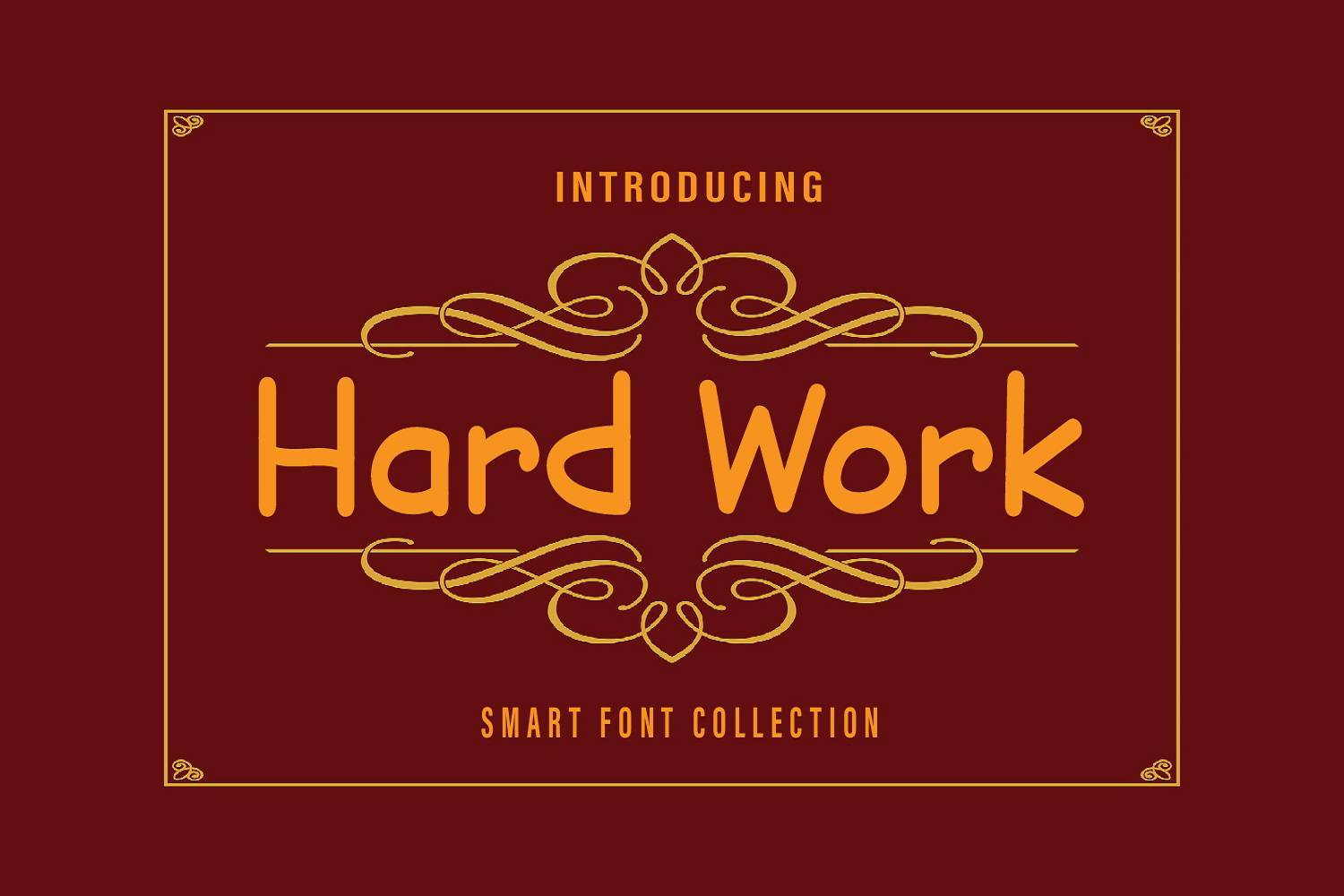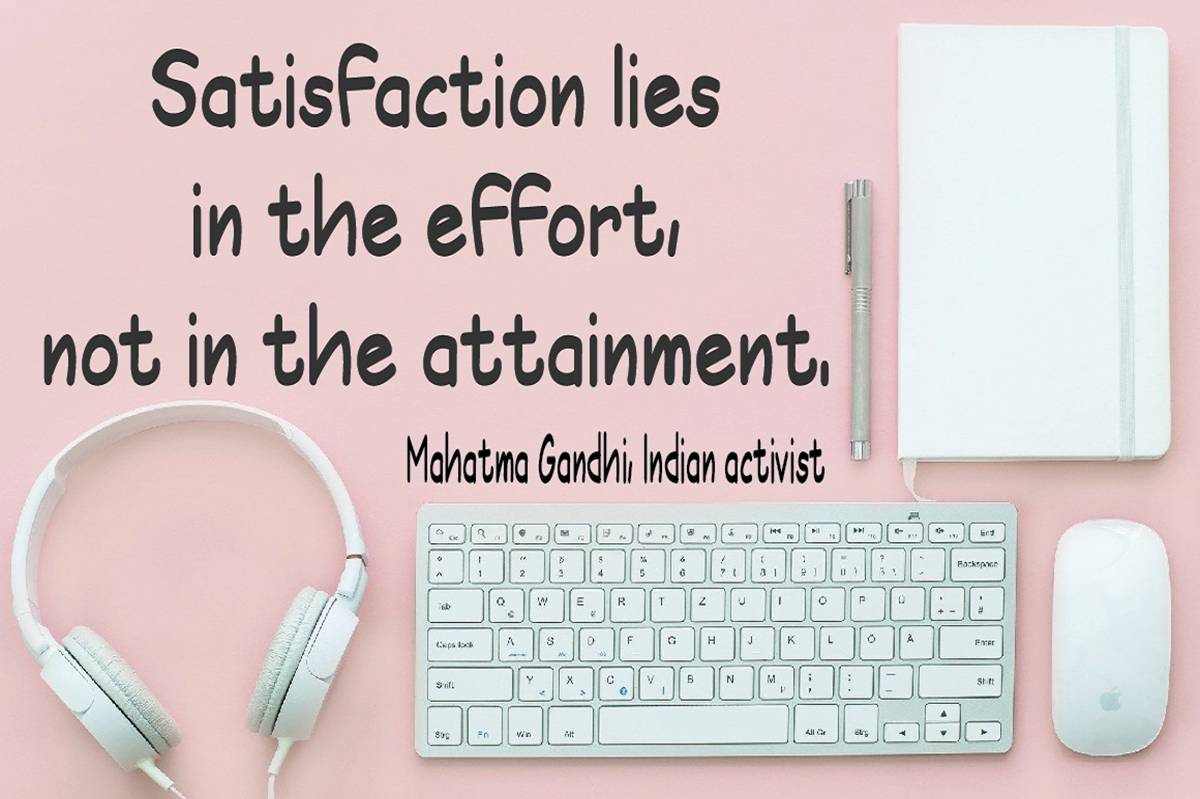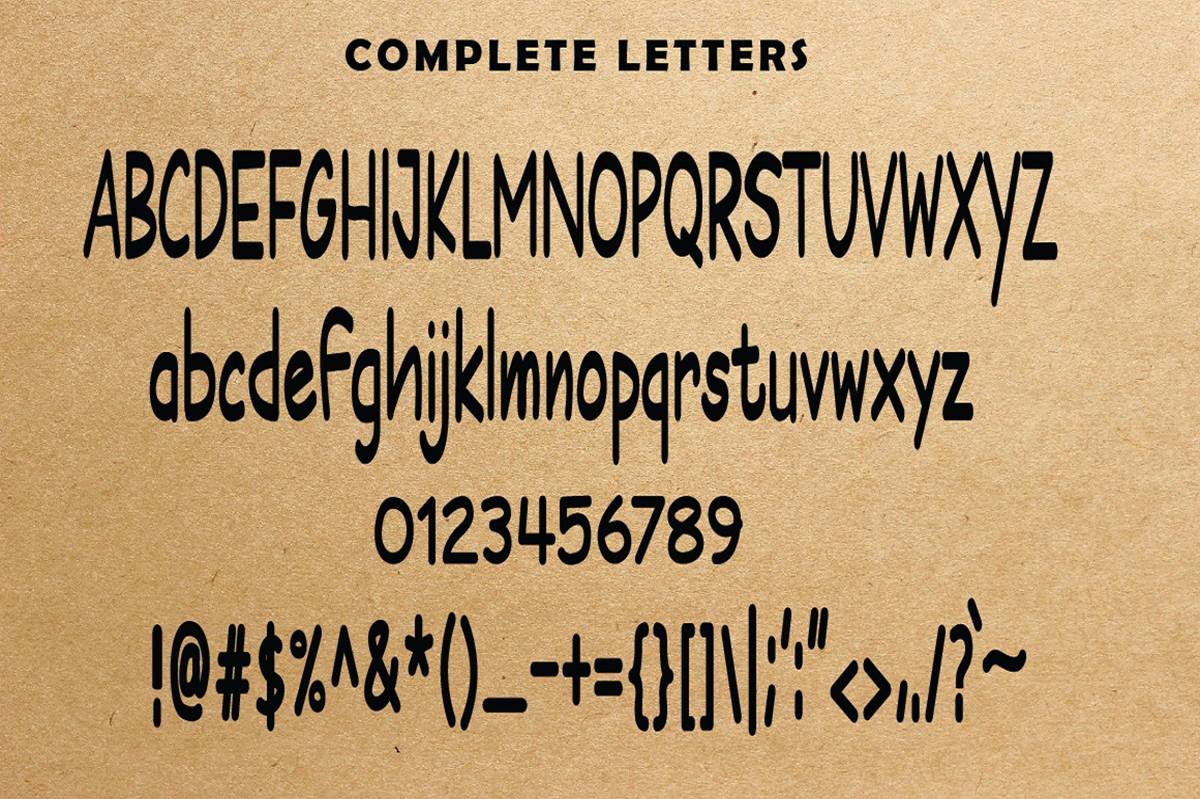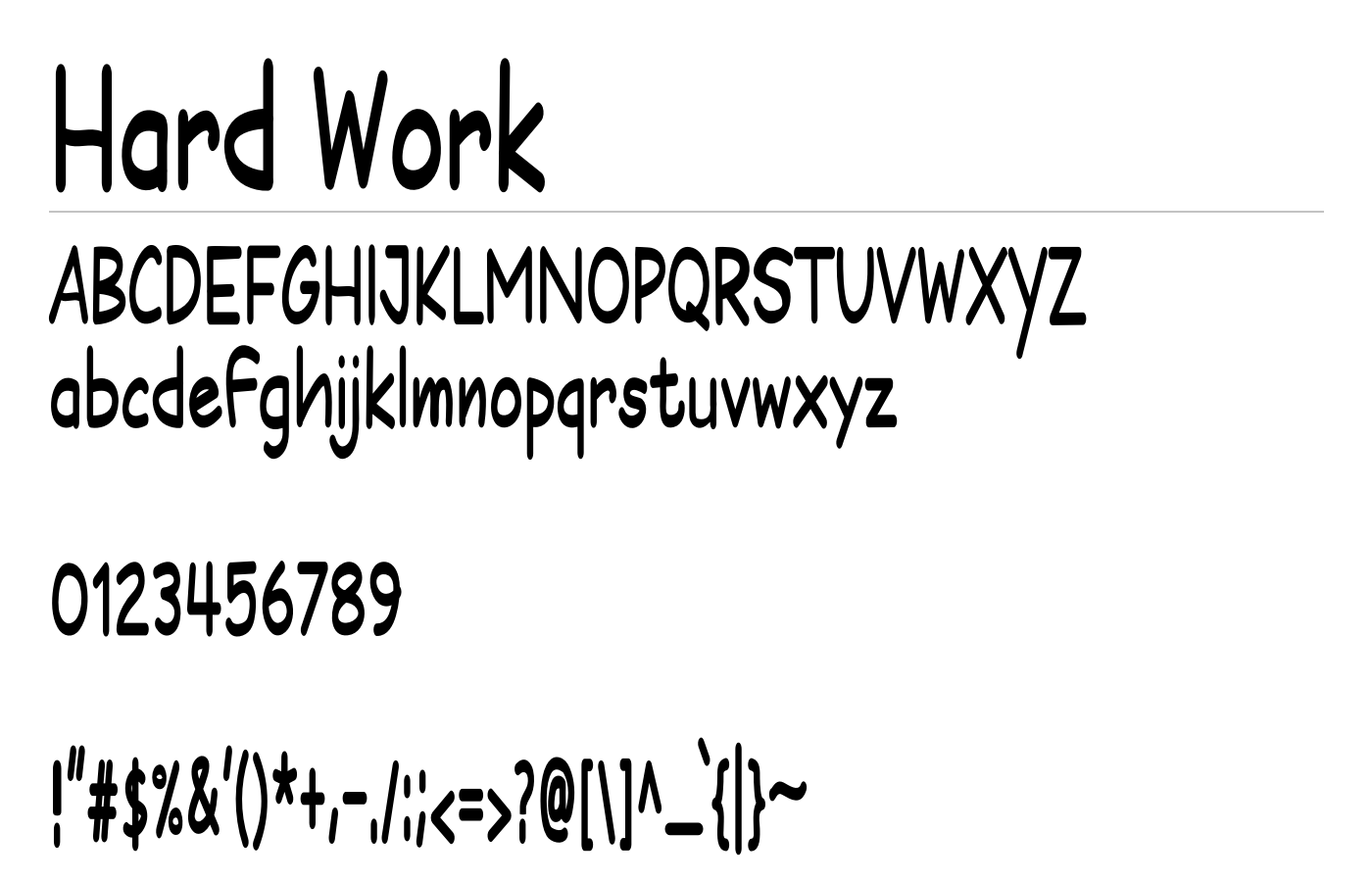
Hard Work Font is a casual, sans serif typeface with a hand-drawn, playful character that feels friendly and approachable. Its tall, narrow letterforms with slightly irregular strokes evoke a sense of fun and creativity, making it ideal for informal projects, children’s materials, and any design seeking a warm, personal touch. This font works well in headlines, logos, and creative content where a lively and unique personality is desired.
Hard Work Font
About Hard Work Font
| Font family | Hard Work Font |
| Designer | Farz Studio |